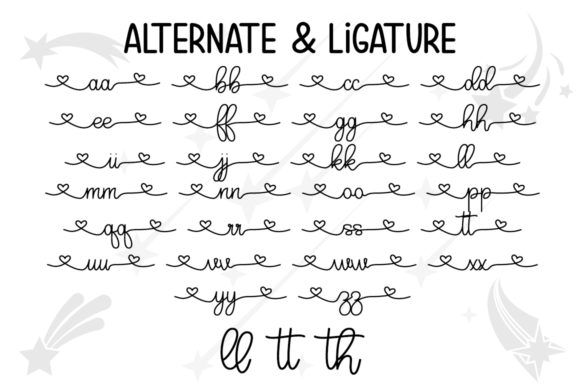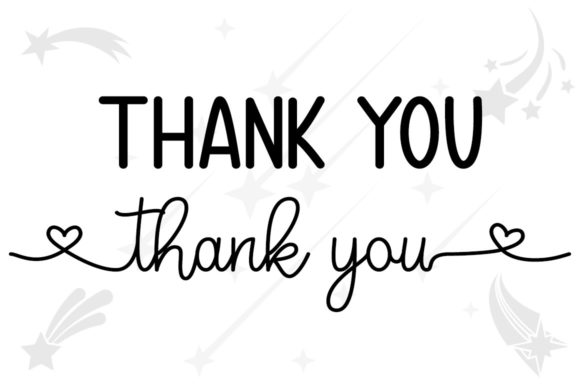
Star Palace Font
Star Palace is a lovely and versatile duo font (sans serif and script). This font is PUA encoded which means you can access all of the glyphs and swashes with ease! Get inspired by its light and approachable style and employ it to your most favorite creations.